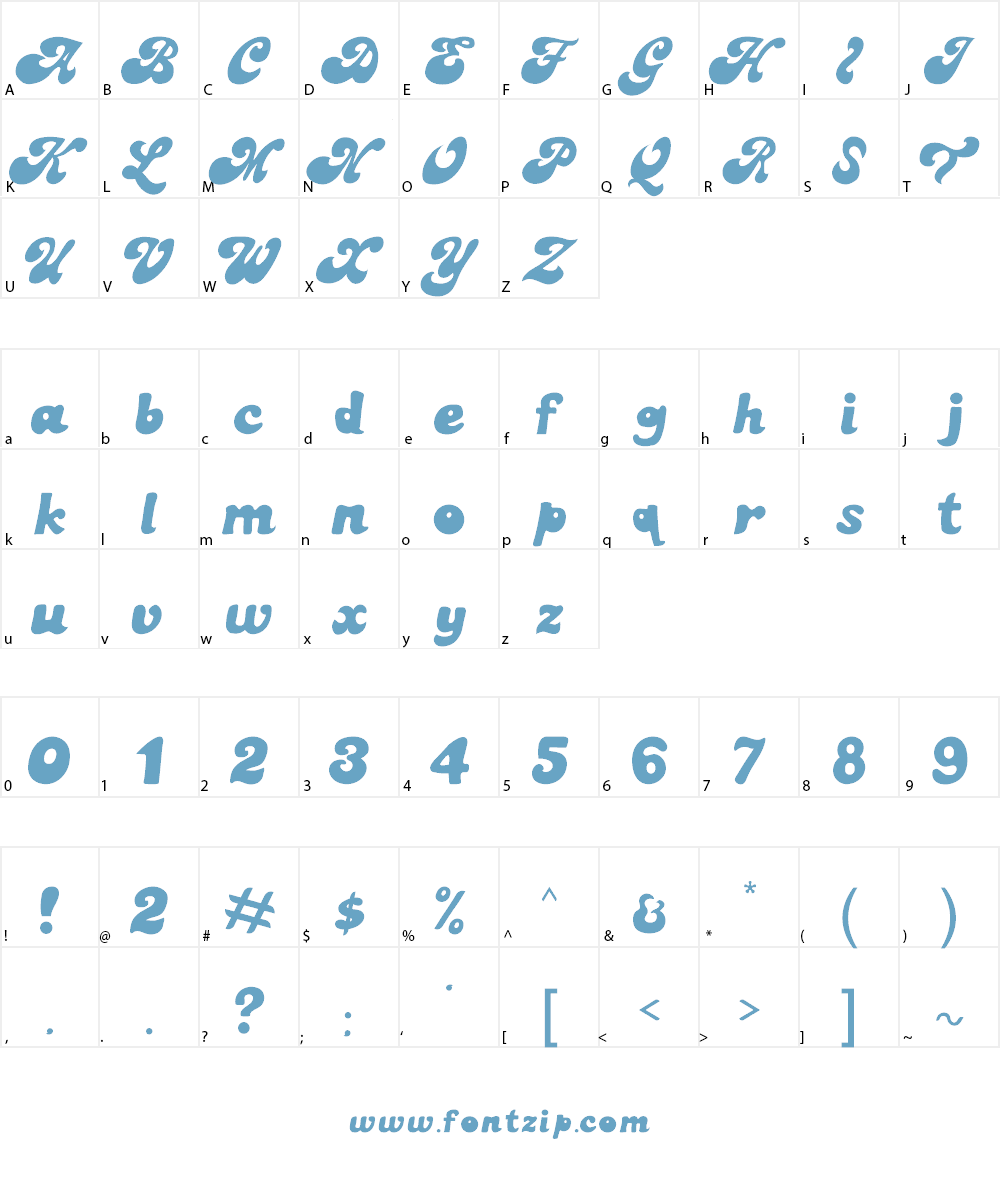
The typeface 'Good Vibrations' captures the beach / surf culture you experience when travelling around the beautiful country of New Zealand. Conceptually the typeface explores notions of place and a particular historical time period, the 1970’s. The formal language in Good Vibrations focuses on visually translating the experience of waves that tourists encounter at beaches in New Zealand. Formally this is expressed through the big, bold flicks in each individual letter.
Ray Cruz influences the 1970’s aspect of ‘Good Vibrations’ by making the stroke width of the bold, reflecting popular typeface trends of this era.